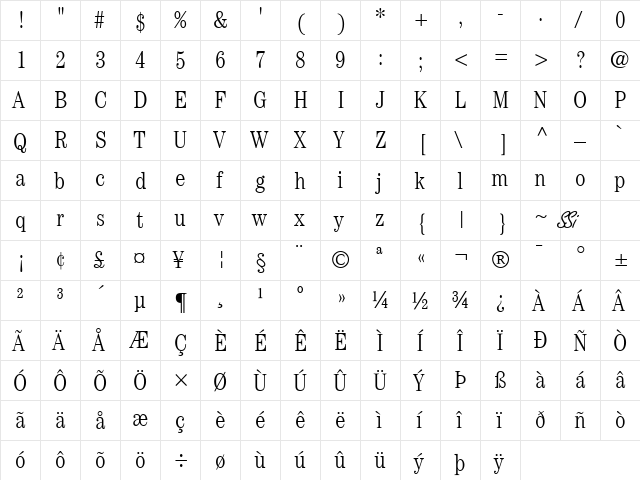
Century Light Condensed SSi Light Condensed Font Preview
Design Context for Century Light Condensed SSi Typeface
Century Light Condensed SSi takes a measured approach to typography — its balanced proportions and neutral character make it a reliable workhorse for both digital and print work. Its slender proportions lend an understated elegance to any composition. The condensed width makes it efficient for tight spaces without sacrificing legibility.